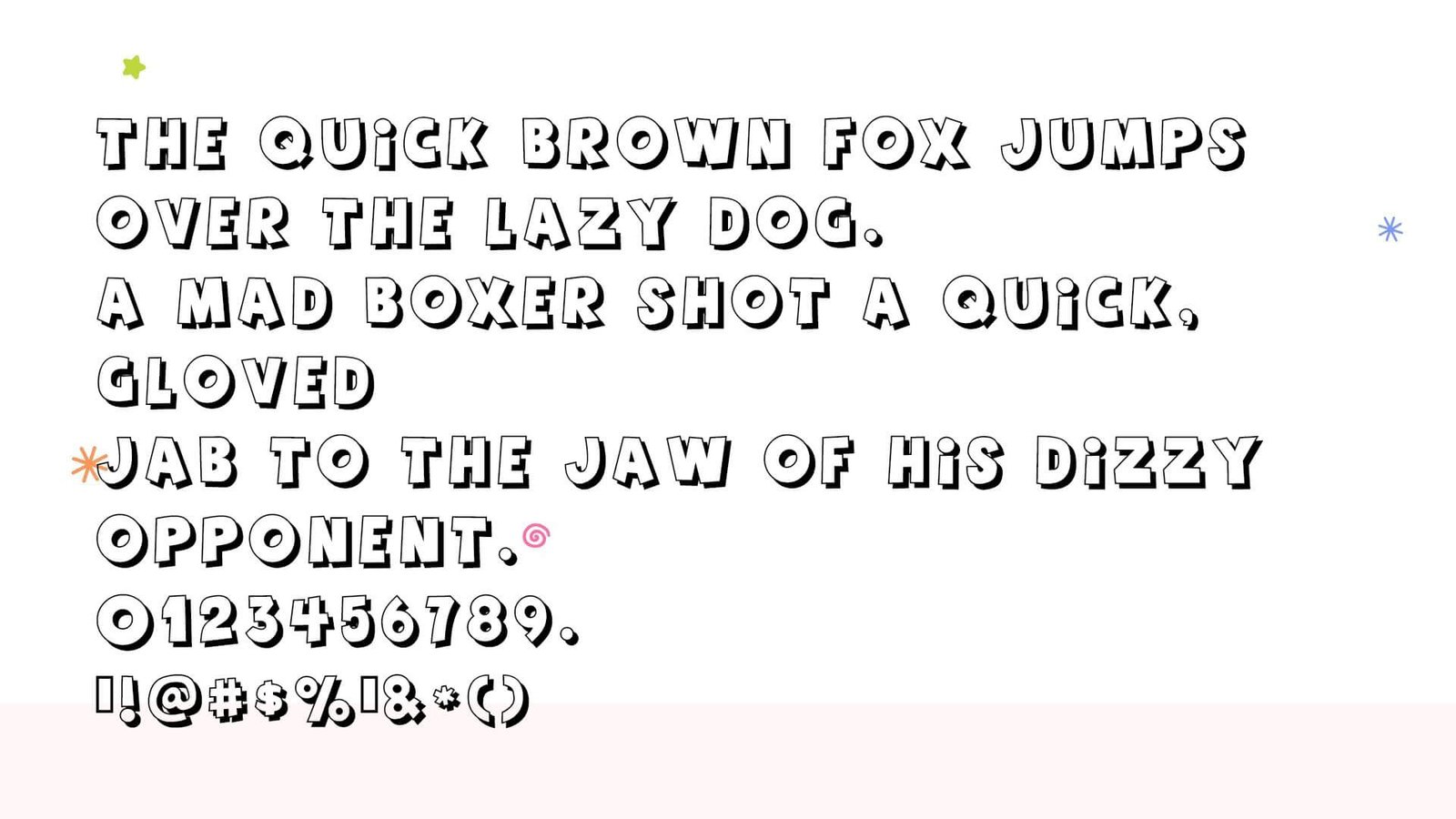
Toy Story Font belongs to the Sans-Serif typeface family and features a textured style created by Eric Gill. Its popularity skyrocketed after being prominently featured in the Cartoon Toy Story logo, which was designed using two distinct typefaces.
Toy part with other typeface and Story part with another font style. Toy part was designed by a Customized Comic Font and it was designed by Eric Gill in 1926 and published by Monotype in 1928 a year later.
| Name | Toy Story Font |
| Designer | Eric Gill |
| Style | Sans-serif |
The story part was designed with Gill Sans Bold. Pairing it with a display font, like Gruppo Font, will enhance the designs elegance.